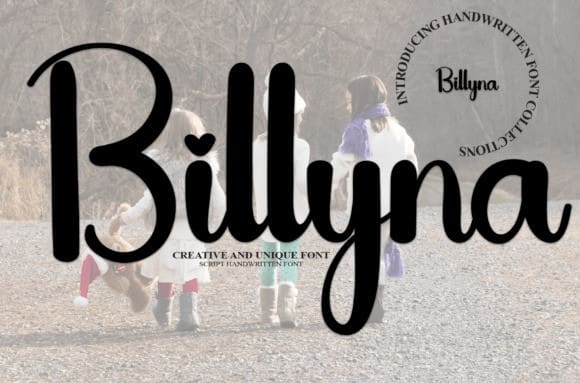
Billyna Script Font
Billyna Script Font, is a sweet and friendly handwritten font. Creative and cute, this font is ideal for writing wedding invitations, cards, or any other design that might need a fun touch!